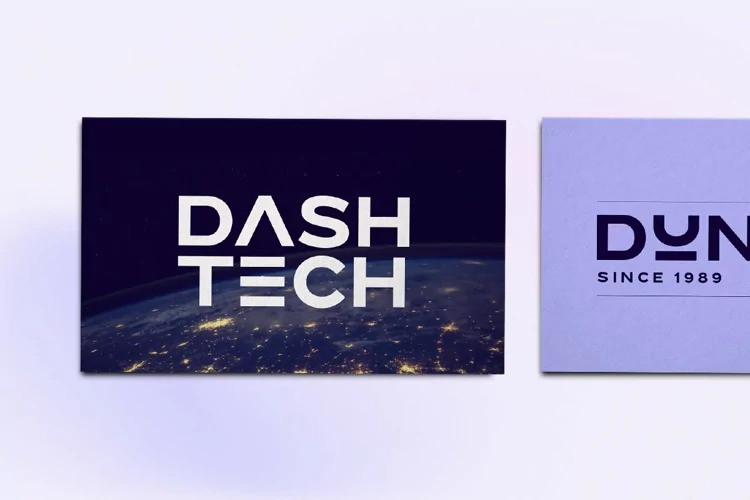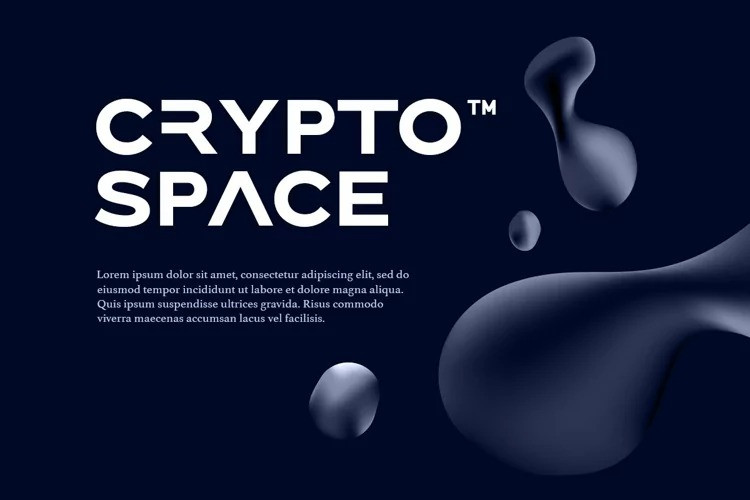
Brolink Display Font
It’s a modern, elegant and futuristic display font inspired by old Science Fiction Horror movies. You can use this font for any purpose, especially to make logotype. You can mix and match the uppercase and lowercase to make your logo more readable. This font also comes with outline style!